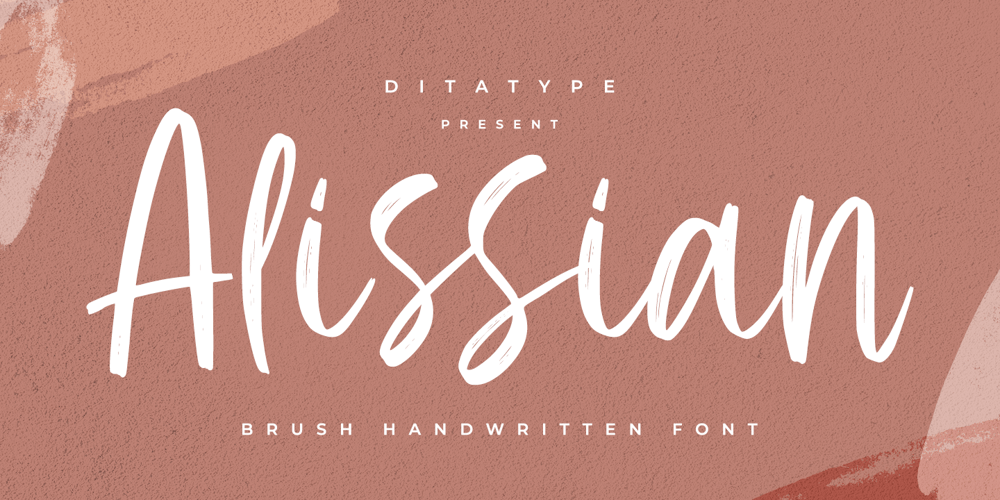
Alissian Font Family was designed by Donis Miftahudin and published by Ditatype. Alissian contains 1 styles and family package options. Alissian is a modern handwritten font. With a classy and natural handwritten style, it brings a classy and chic typeface. Alissian is best used for weddings, branding, logotype, and quotes.Includes: – Alissian (OTF)Features: – Beautiful Ligatures – PUA Encoded – Multilingual Support – Numerals and Punctuation